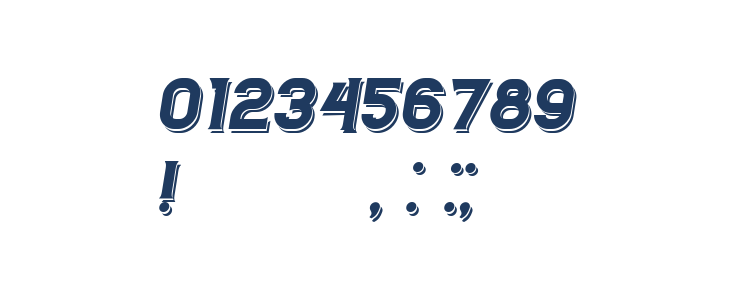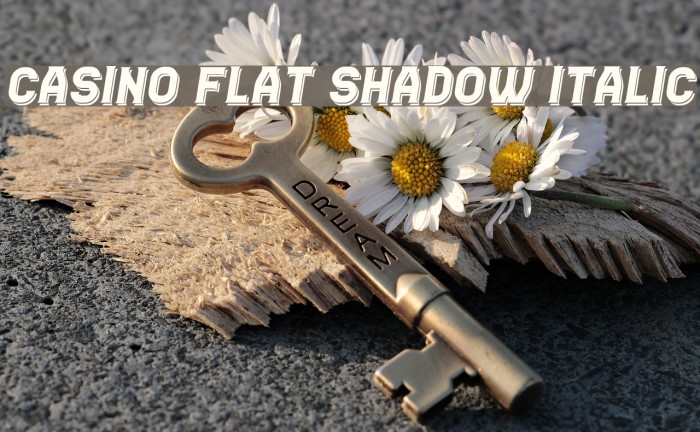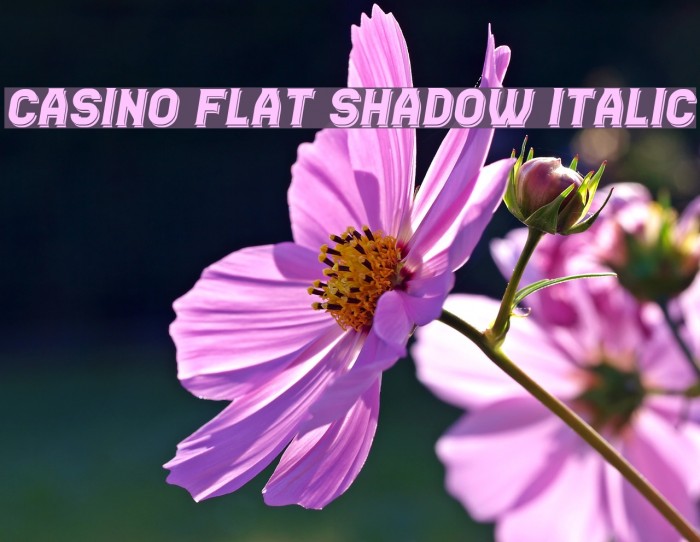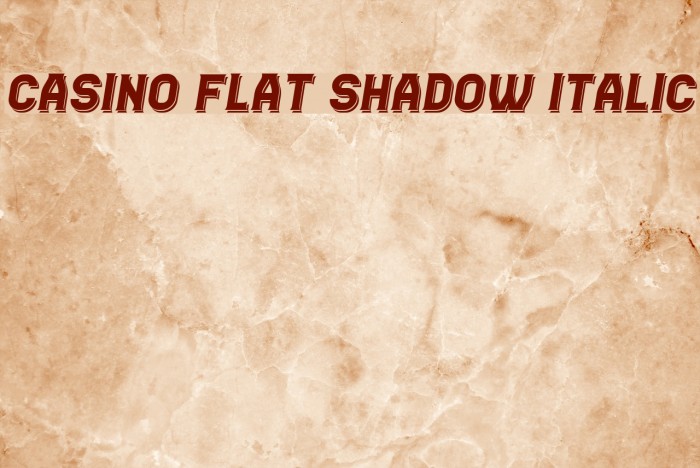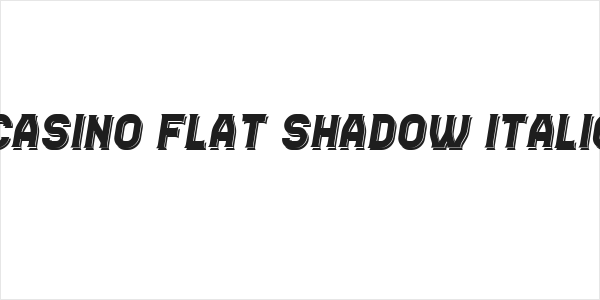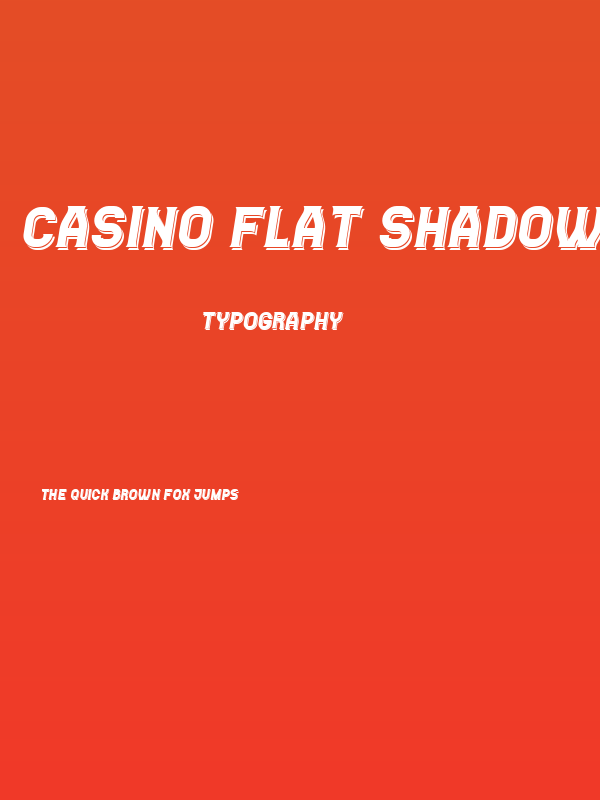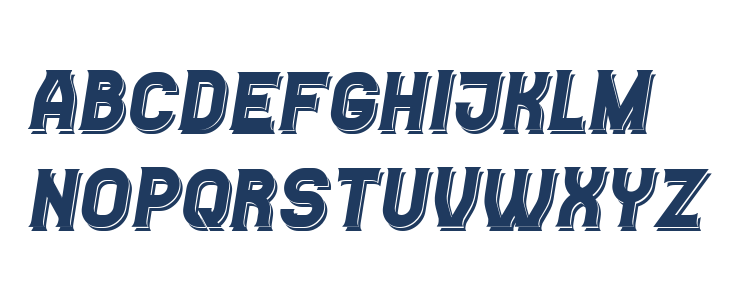
Casino Flat Shadow Italic Font
Casino Flat Shadow Italic Description
This font features a bold and dynamic style with a distinct shadow effect that gives it a three-dimensional appearance. The letters are italicized, adding a sense of motion and energy. The uppercase and lowercase characters maintain a consistent width, while the numbers and special characters complement the overall design. The shadow effect is flat, creating a strong visual impact suitable for eye-catching designs. The font's boldness and shadow make it ideal for projects that require a striking and memorable look.
| Proposed Projects | Ideal for posters, headlines, advertisements, and branding where a bold and dynamic look is desired. |